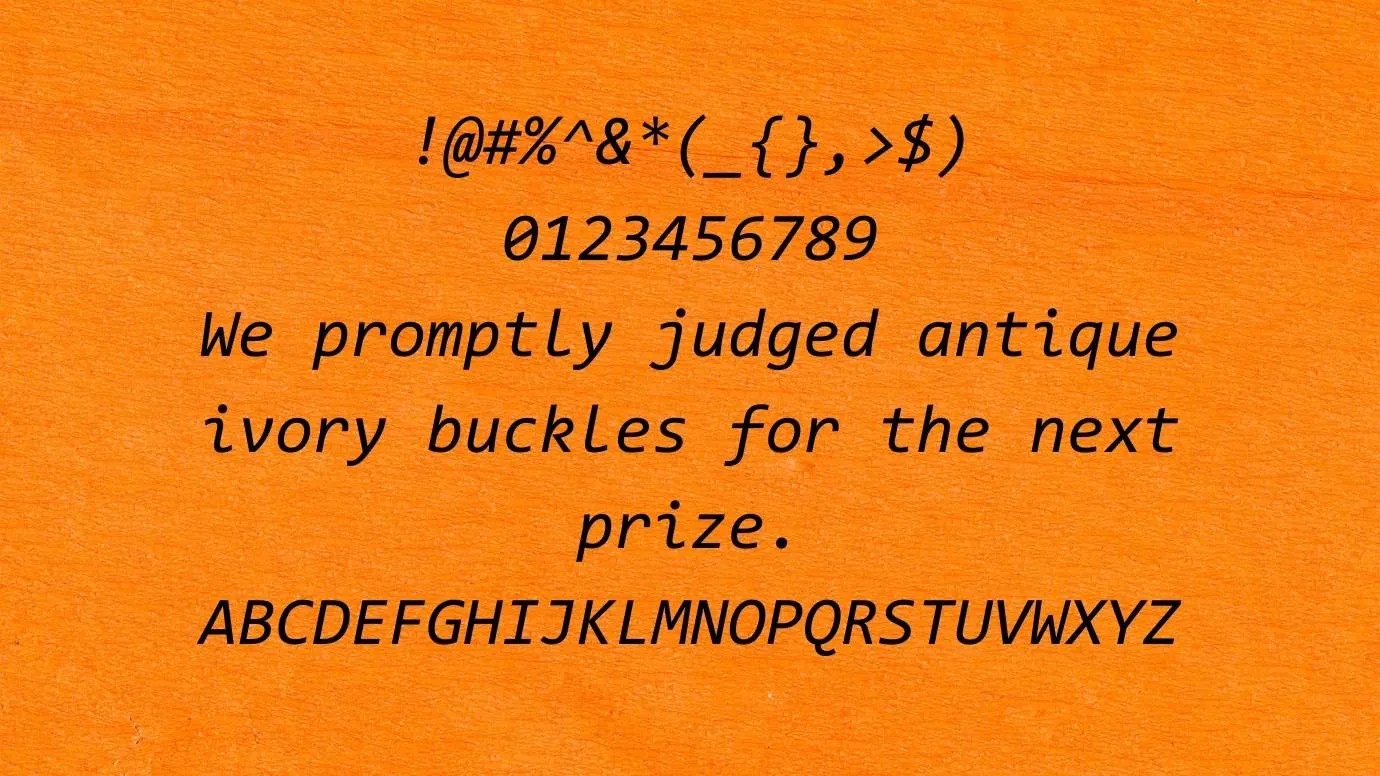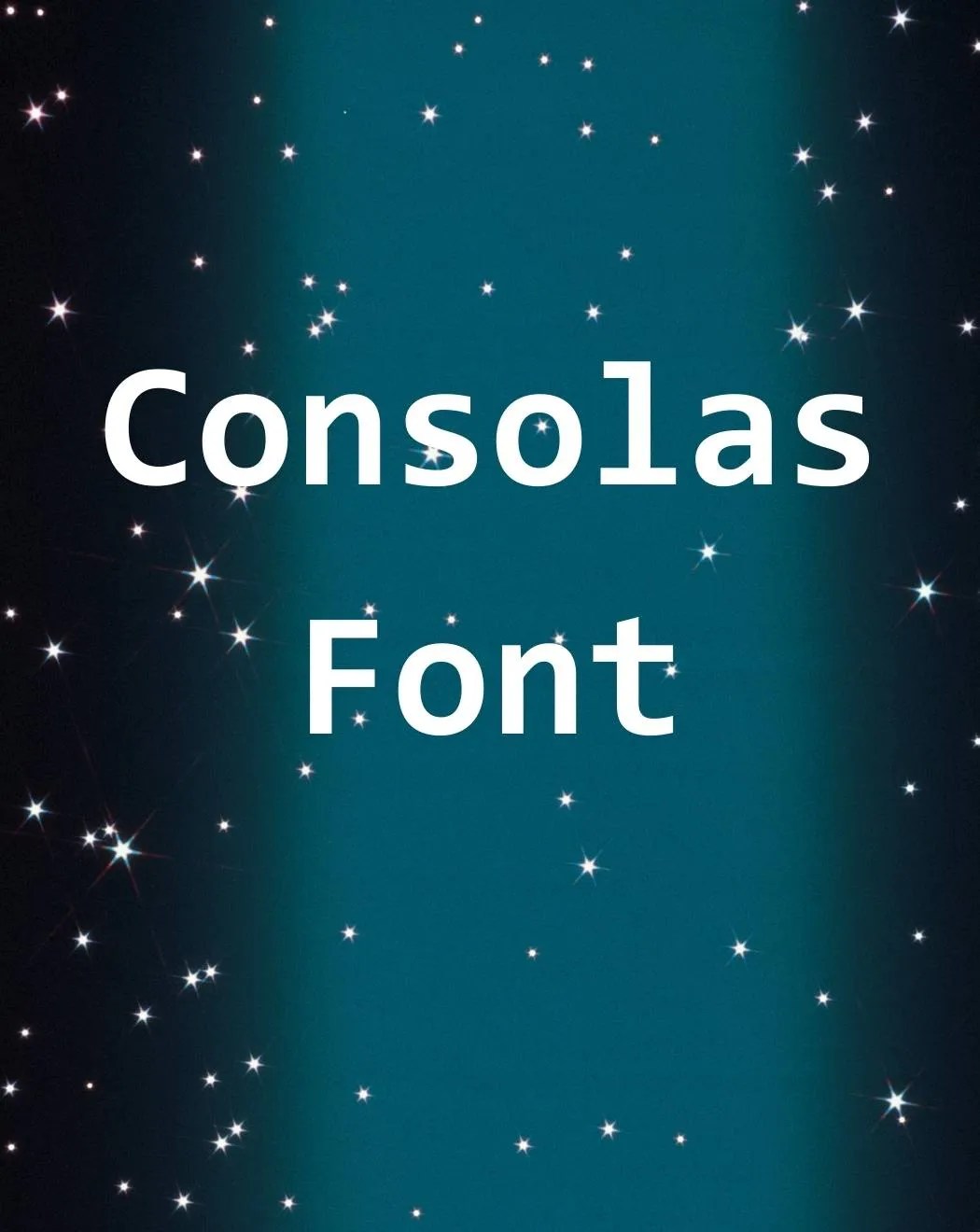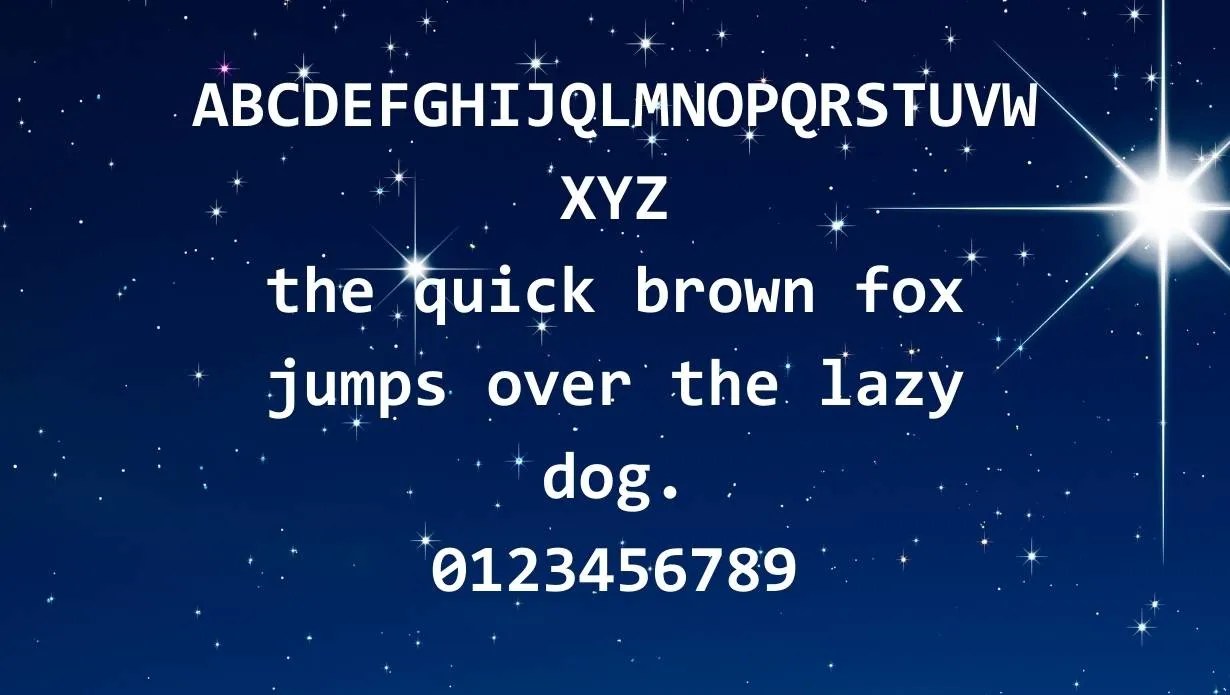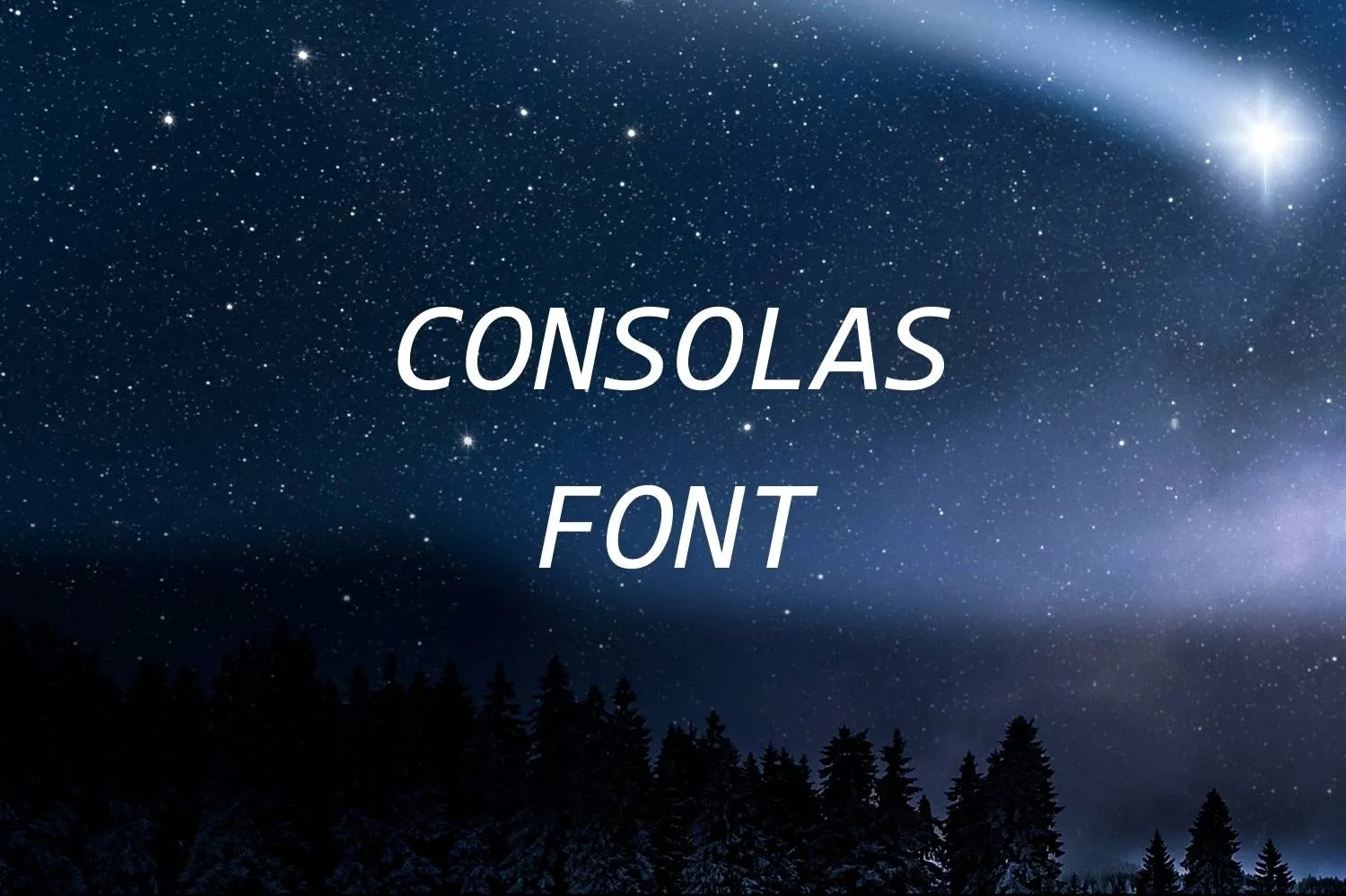
Consolas Font Html . Consolas is a monospaced typeface designed by luc(as) de groot. All characters have the same width, like old typewriters, making it a. Apply golden ratio to font sizes and line height based on paragraph font size. It is a part of the cleartype font collection, a suite of fonts that take advantage. All characters have the same. Consolas is aimed for use in programming environments and other circumstances where a monospaced font is specified. safe css font stacks and web fonts. Select, preview, and generate css and html for your font family. The <<strong>font</strong>> tag was used in html 4 to specify the font face, font size, and color of text. Consolas is aimed for use in programming environments and other circumstances where a monospaced font is specified. safe css font stacks.
Consolas is aimed for use in programming environments and other circumstances where a monospaced font is specified. Consolas is a monospaced typeface designed by luc(as) de groot. All characters have the same width, like old typewriters, making it a. Select, preview, and generate css and html for your font family. It is a part of the cleartype font collection, a suite of fonts that take advantage. Apply golden ratio to font sizes and line height based on paragraph font size. All characters have the same. Consolas is aimed for use in programming environments and other circumstances where a monospaced font is specified. safe css font stacks and web fonts. The <<strong>font</strong>> tag was used in html 4 to specify the font face, font size, and color of text.
Consolas Font Html The <<strong>font</strong>> tag was used in html 4 to specify the font face, font size, and color of text. All characters have the same width, like old typewriters, making it a. Select, preview, and generate css and html for your font family. All characters have the same. Consolas is aimed for use in programming environments and other circumstances where a monospaced font is specified. safe css font stacks. The <<strong>font</strong>> tag was used in html 4 to specify the font face, font size, and color of text. It is a part of the cleartype font collection, a suite of fonts that take advantage. Consolas is aimed for use in programming environments and other circumstances where a monospaced font is specified. Apply golden ratio to font sizes and line height based on paragraph font size. safe css font stacks and web fonts. Consolas is a monospaced typeface designed by luc(as) de groot.
Consolas Font Free Download Consolas Font Html Consolas is aimed for use in programming environments and other circumstances where a monospaced font is specified. All characters have the same. Consolas is aimed for use in programming environments and other circumstances where a monospaced font is specified. Apply golden ratio to font sizes and line height based on paragraph font size. It is a part of the cleartype. Consolas Font Html.
Consolas Font Download For Free, View Sample Text, Rating And More On Consolas Font Html It is a part of the cleartype font collection, a suite of fonts that take advantage. Consolas is a monospaced typeface designed by luc(as) de groot. All characters have the same. Consolas is aimed for use in programming environments and other circumstances where a monospaced font is specified. The <<strong>font</strong>> tag was used in html 4 to specify the font. Consolas Font Html.
Consolas Font Free Download Cofonts Consolas Font Html safe css font stacks. Consolas is a monospaced typeface designed by luc(as) de groot. Consolas is aimed for use in programming environments and other circumstances where a monospaced font is specified. safe css font stacks and web fonts. Consolas is aimed for use in programming environments and other circumstances where a monospaced font is specified. It is a. Consolas Font Html.